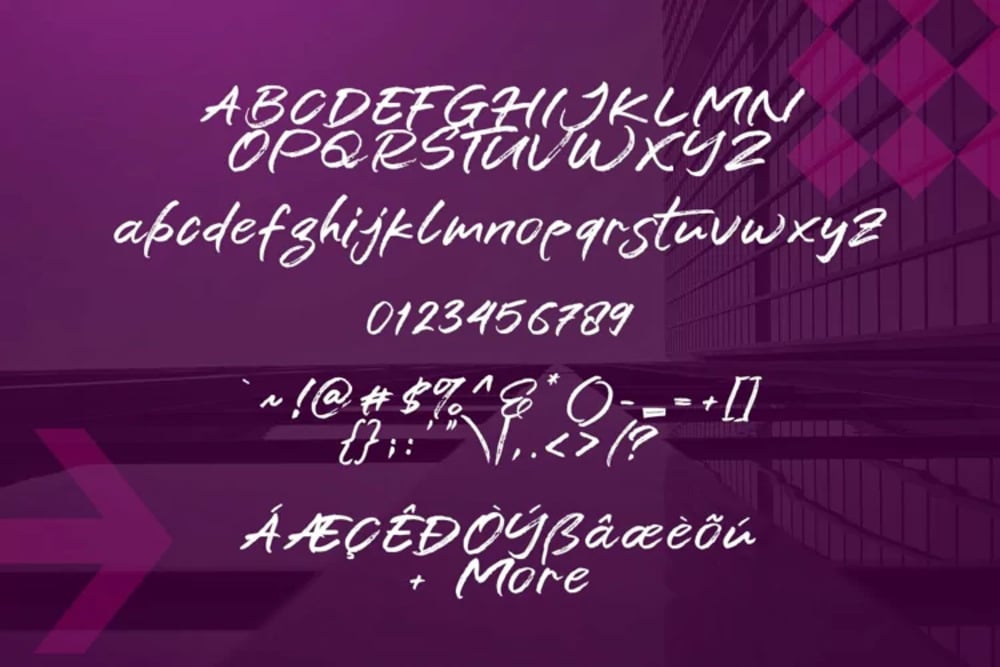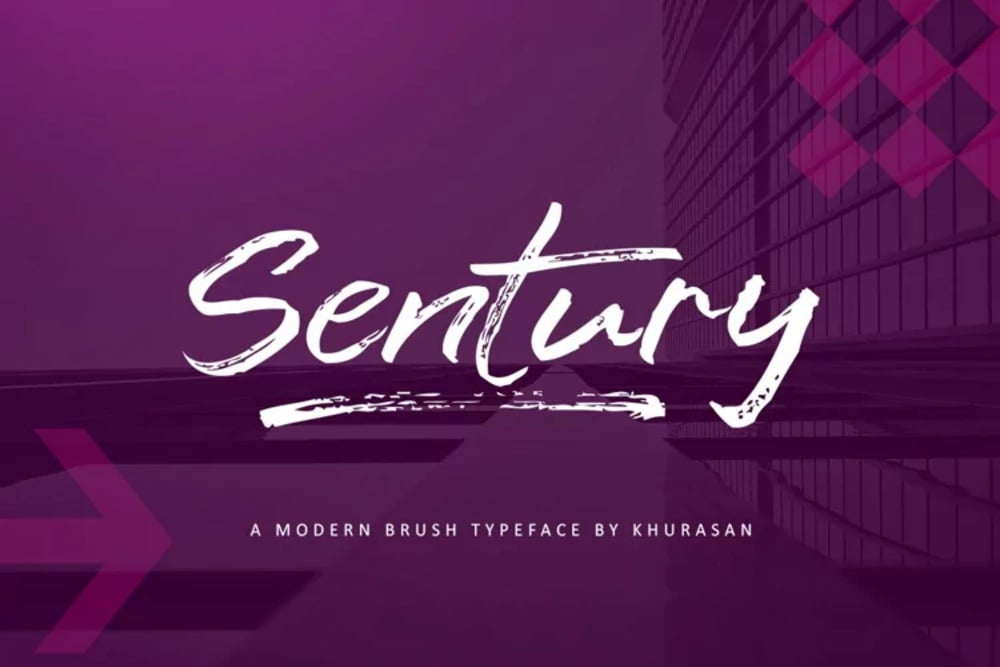
Sentury Font
Sentury is a modern and geometric sans-serif font family, characterized by its clean lines and balanced proportions. Its versatile design makes it suitable for a wide range of applications, from branding and editorial design to web and mobile interfaces. Sentury offers a contemporary aesthetic with a touch of understated elegance, making it a strong choice for projects seeking a professional and polished look. It’s highly legible and impactful in various sizes.